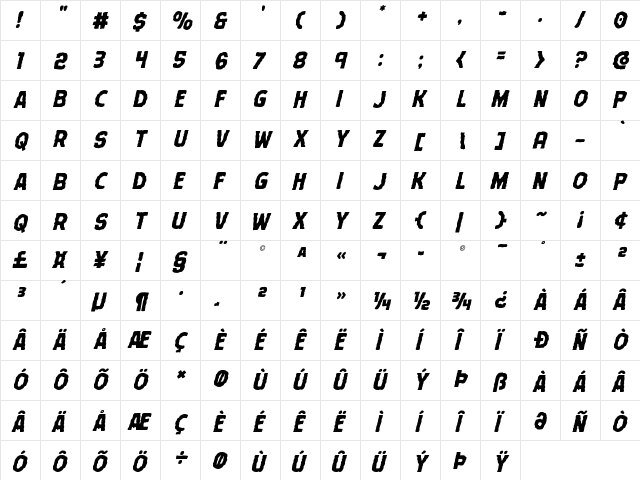
Terror Babble Staggered Italic Italic
Design Context for Terror Babble Staggered Italic Typeface
Terror Babble Staggered Italic offers clean, dependable letterforms without strong stylistic allegiance, making it a practical choice for designers who need flexibility. The dynamic lean of this cut emphasises speed and emphasis in any layout.
Pro Tip: Use Terror Babble Staggered Italic for emphasis, pull quotes, and subheadings where its slanted energy can add rhythm to the layout.